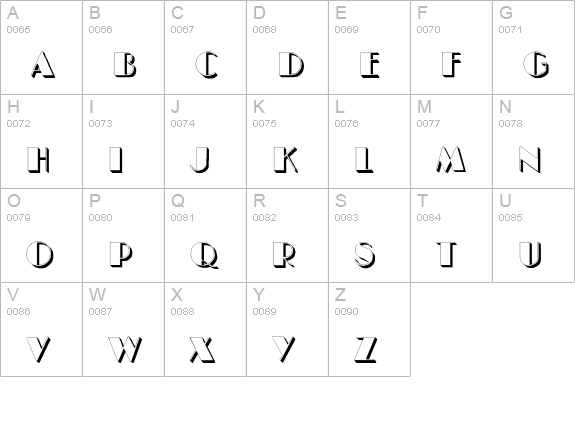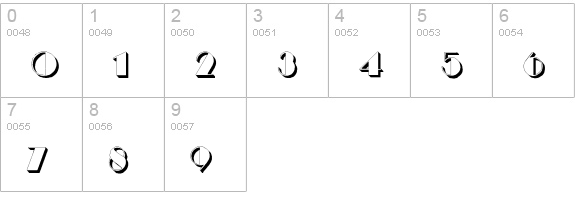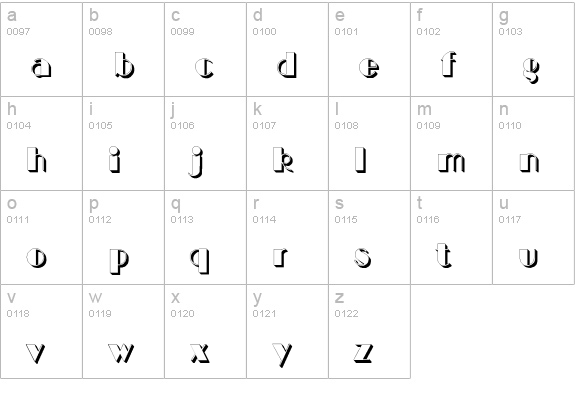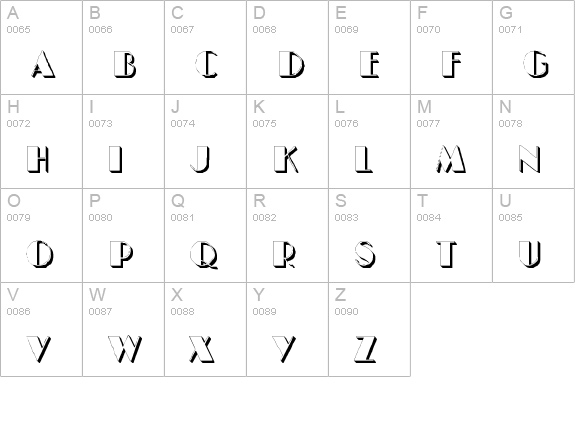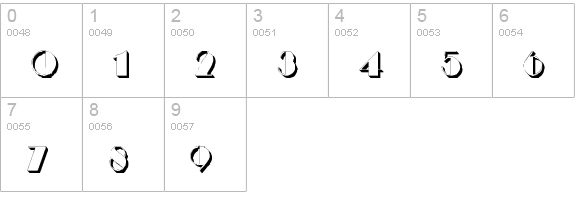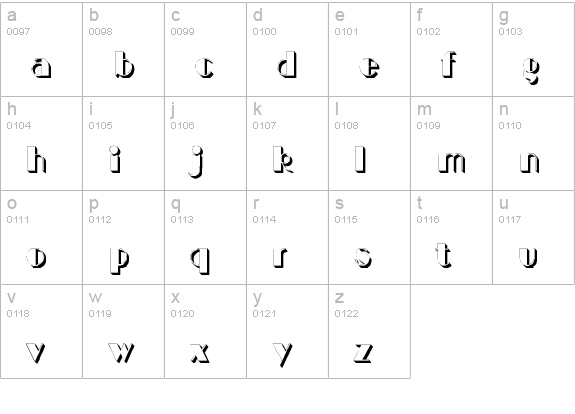
BIGCSHAD-Normal Font Details
BIGCSHAD-Normal is the standard, neutral variant in the BIGCSHAD typeface family \xE2\x80\x94 well suited to general body text, paragraphs, and standard typographic work.
BIGCSHAD-Normal font is a versatile and stylish typeface that is perfect for a wide range of design projects. With its bold and impactful appearance, this font is sure to make a statement and grab attention. Whether you're creating posters, logos, or social media graphics, BIGCSHAD-Normal will add a touch of sophistication to your work. The best part? BIGCSHAD-Normal font is available for free download at FontsMarket.com. So go ahead and elevate your designs with this eye-catching font without breaking the bank. Download it today and unleash your creativity with BIGCSHAD-Normal font!